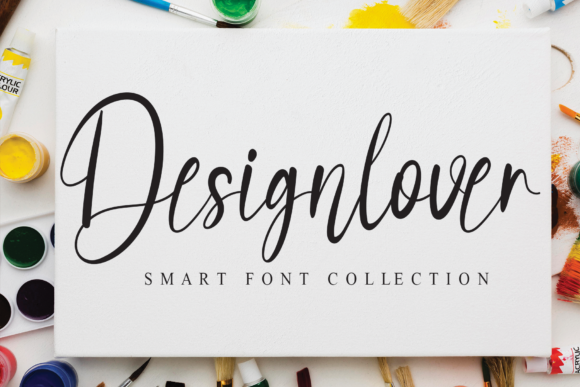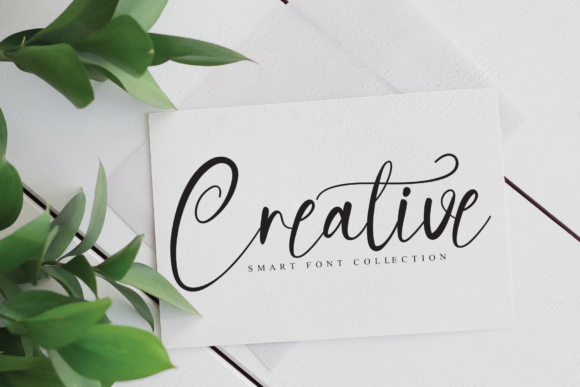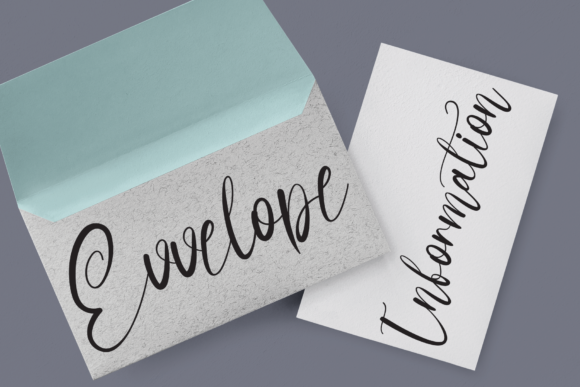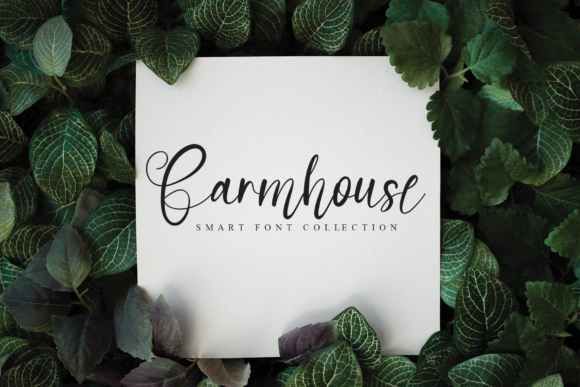
Introduction to Lovestorys Font
Lovestorys is an elegant, flowing and delicate script font.
It can be used for a variety of inspired ideas Fall in love with this beautiful design and explore its endless opportunities.
Key Features of Lovestorys Font
Why Choose Lovestorys Font?
Lovestorys Font offers exceptional quality and versatility, making it a valuable addition to your design toolkit. Whether you’re creating for personal projects or commercial use, Lovestorys Font delivers professional results.